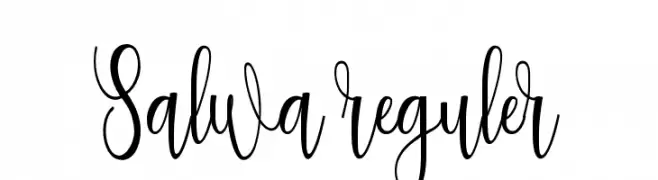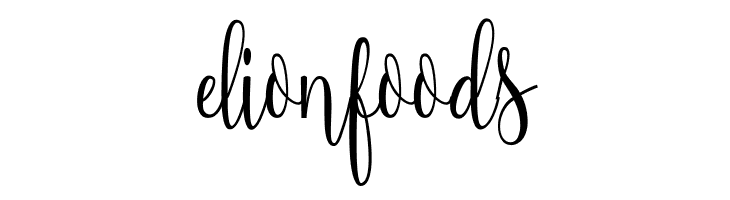
A bold, brush-style handwritten font with dynamic strokes.
A bold, elegant script font with high contrast and flowing curves.
A lively, expressive handwritten font with fluid strokes and elegant flair.
A fluid and elegant script font with a handwritten style.
An elegant script font with decorative uppercase and graceful lowercase letters.
An elegant, calligraphic script font with ornate uppercase and flowing lowercase letters.
An elegant, flowing script font with intricate loops and slender letterforms.
A graceful and elegant script font with a handwritten style.
An elegant, flowing script font with a handwritten style.